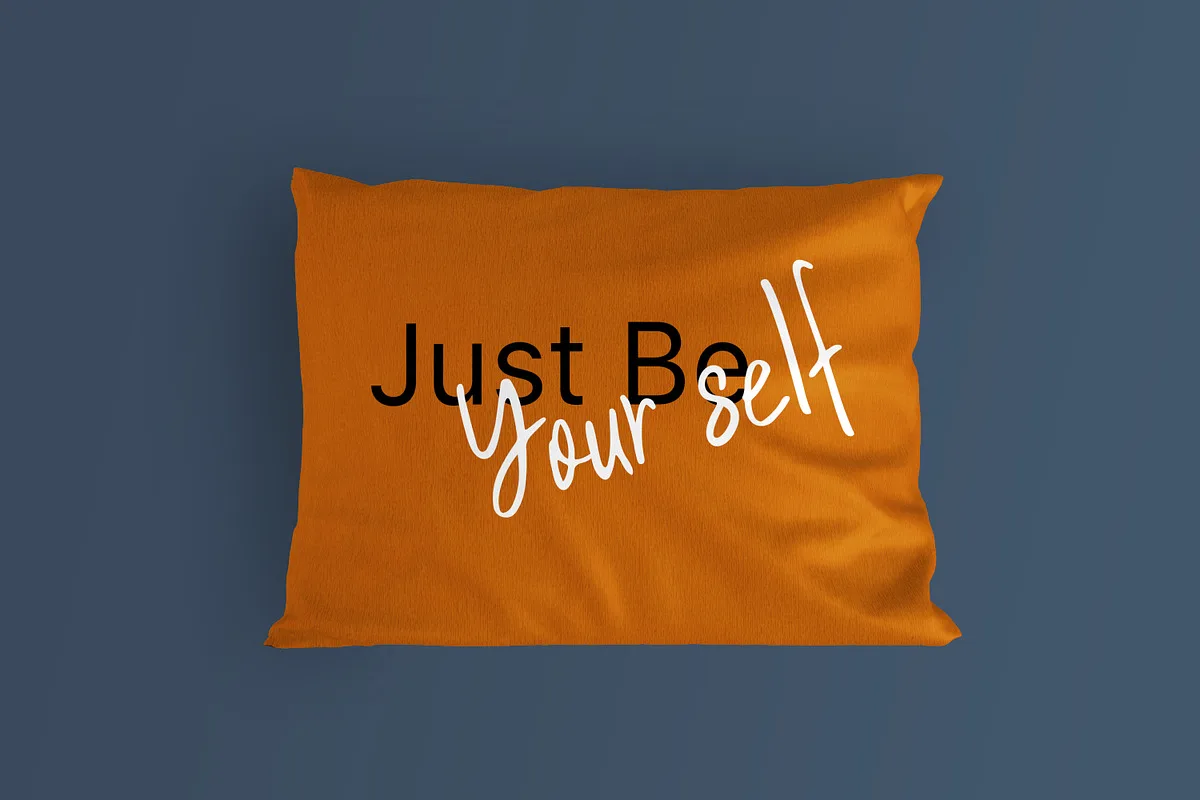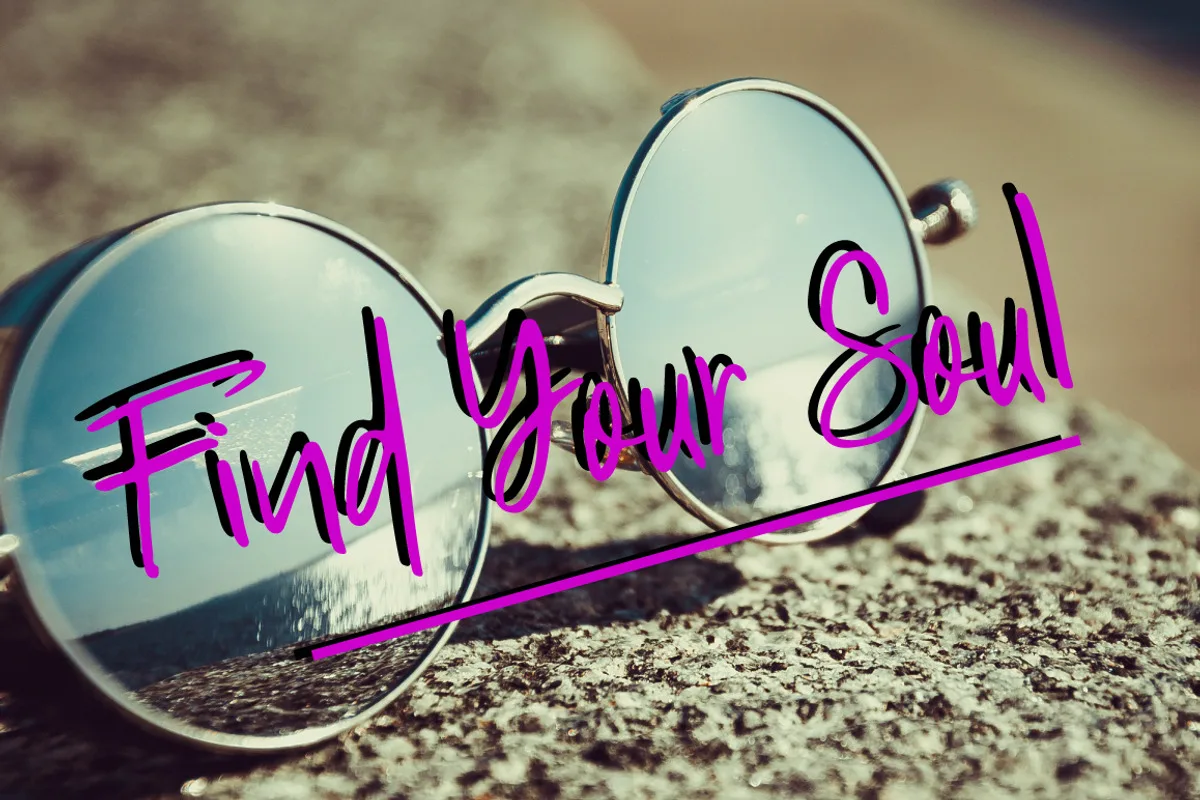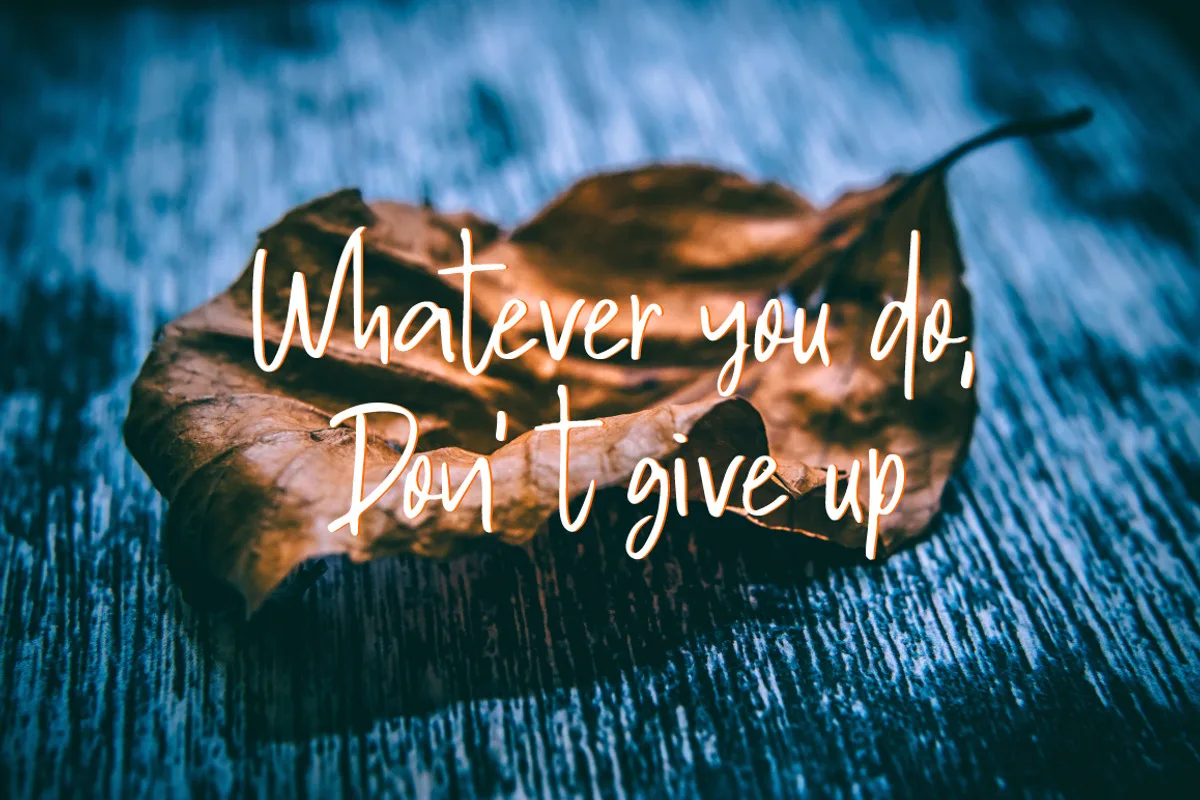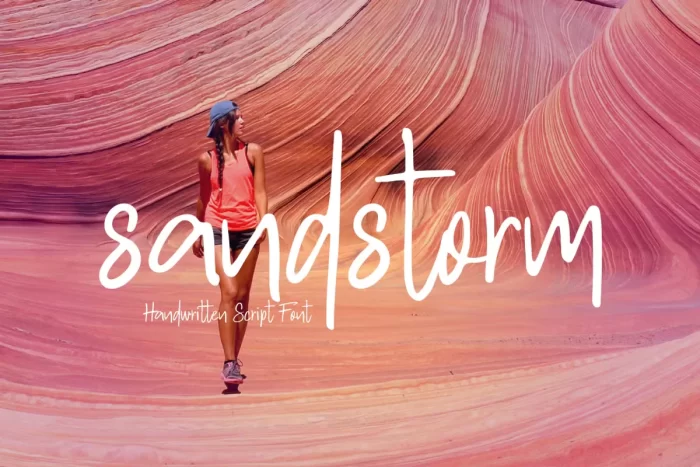
Sandstrom is a handwritten script font. It is perfect for wedding invitation or your blog. Also with their help, you can create a logo or beautiful frame for your home. Or just use for your small business, book covers, stationery and more.